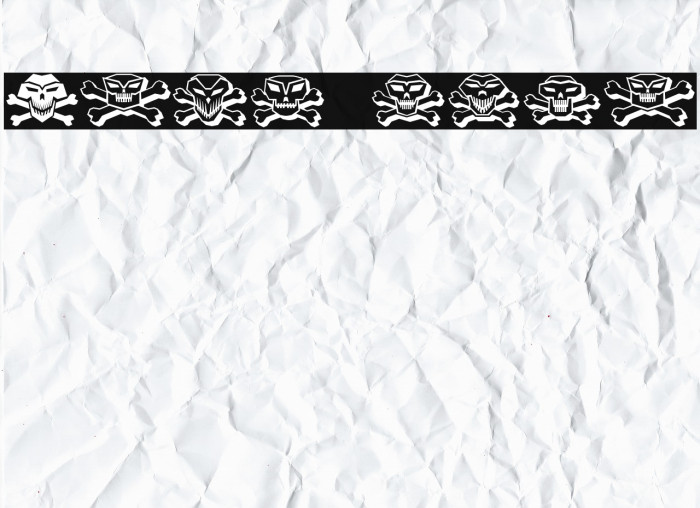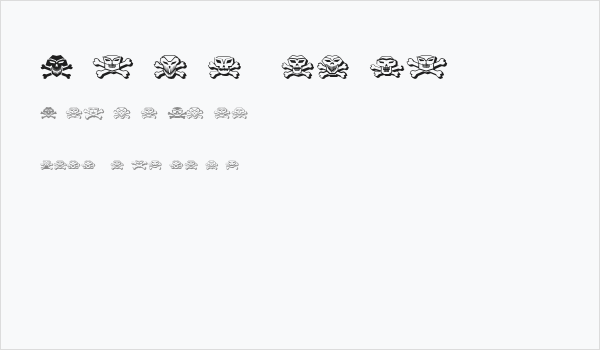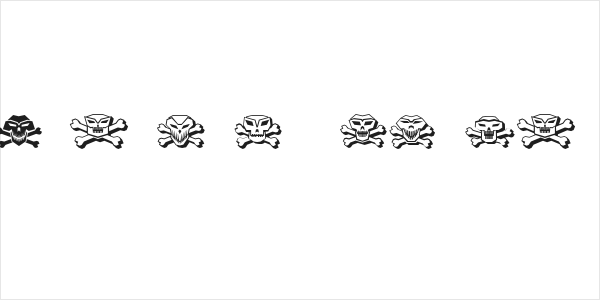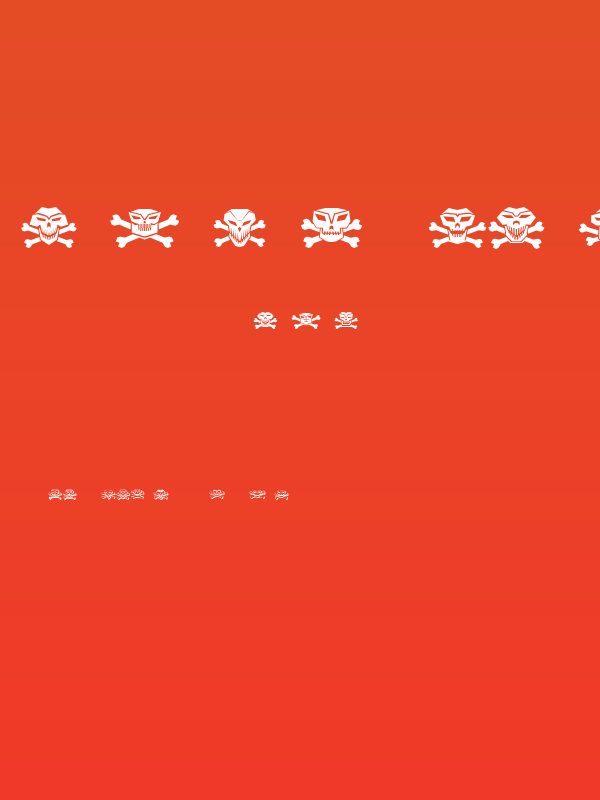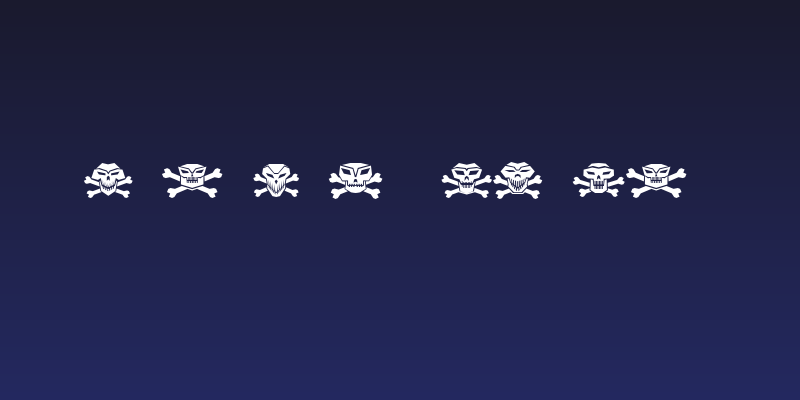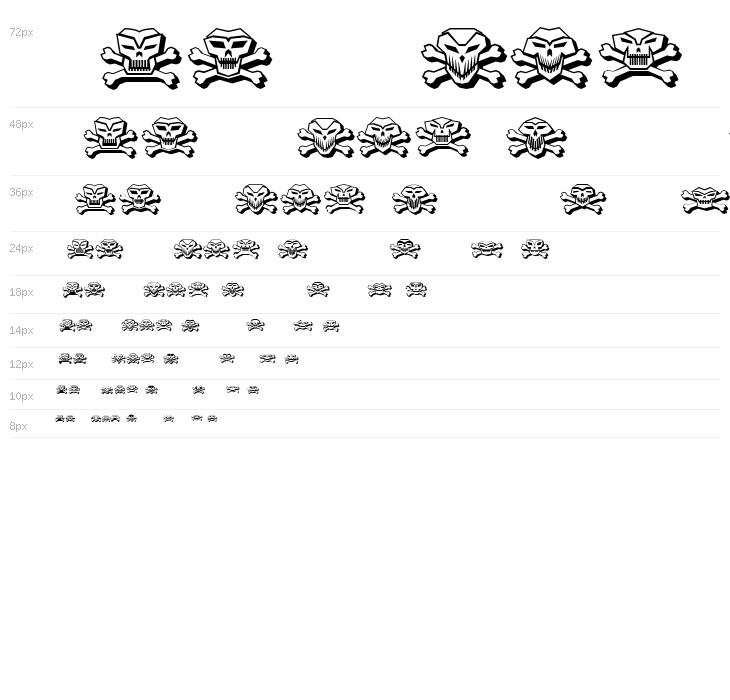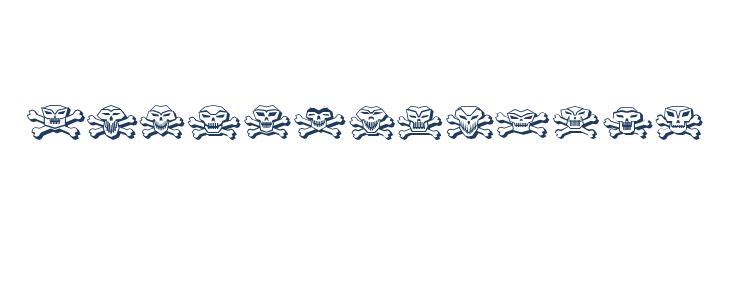
Cranium Regular Font
Cranium Regular Description
This design features a series of skull and crossbones motifs, each with unique facial expressions and intricate detailing. The style is bold and striking, with a strong emphasis on the menacing and edgy aesthetic. The motifs are evenly spaced, creating a consistent pattern that can be used for decorative purposes. The design is highly detailed, with each skull displaying distinct characteristics, making it suitable for projects that require a gothic or rebellious theme.
Use CaseLogos, Decorative elements
Proposed ProjectsIdeal for use in graphic design projects such as posters, album covers, or apparel that require a gothic or rebellious theme.